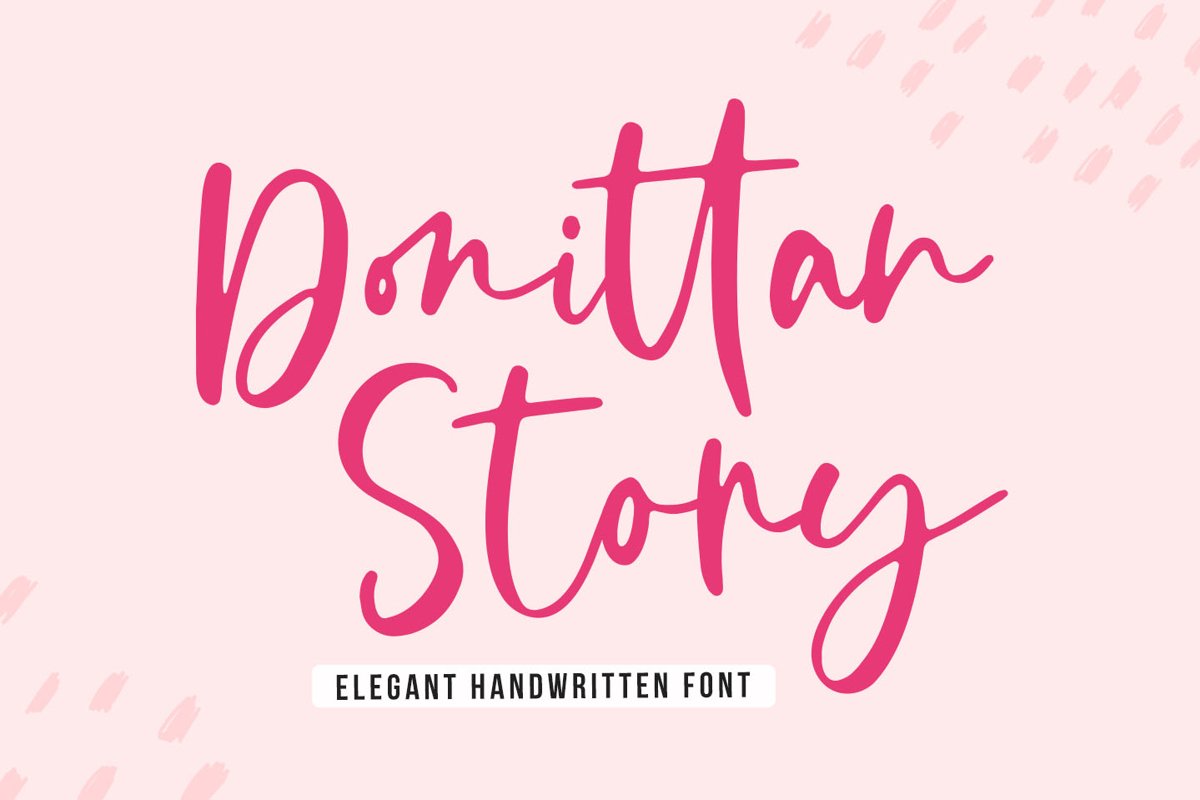
Elegant Handwritten - Donittan Story
Donittan Story
Donittan Story is a handwritten signature script with a natural & stylish flow. This font has a multitude of natural-looking ligatures in its OpenType features - making the font look as close to natural handwriting as possible. This collection of scripts is perfect for branding.
Donittan Story Font is perfect for many different projects such as logos & branding, invitation, stationery, wedding designs, social media posts, advertisements, product packaging, product designs, label, photography, watermark, special events or anything.
• Donittan Story includes capital and lowercase letters, alternates, and Ligatures